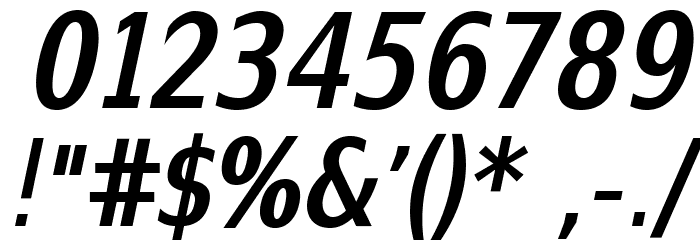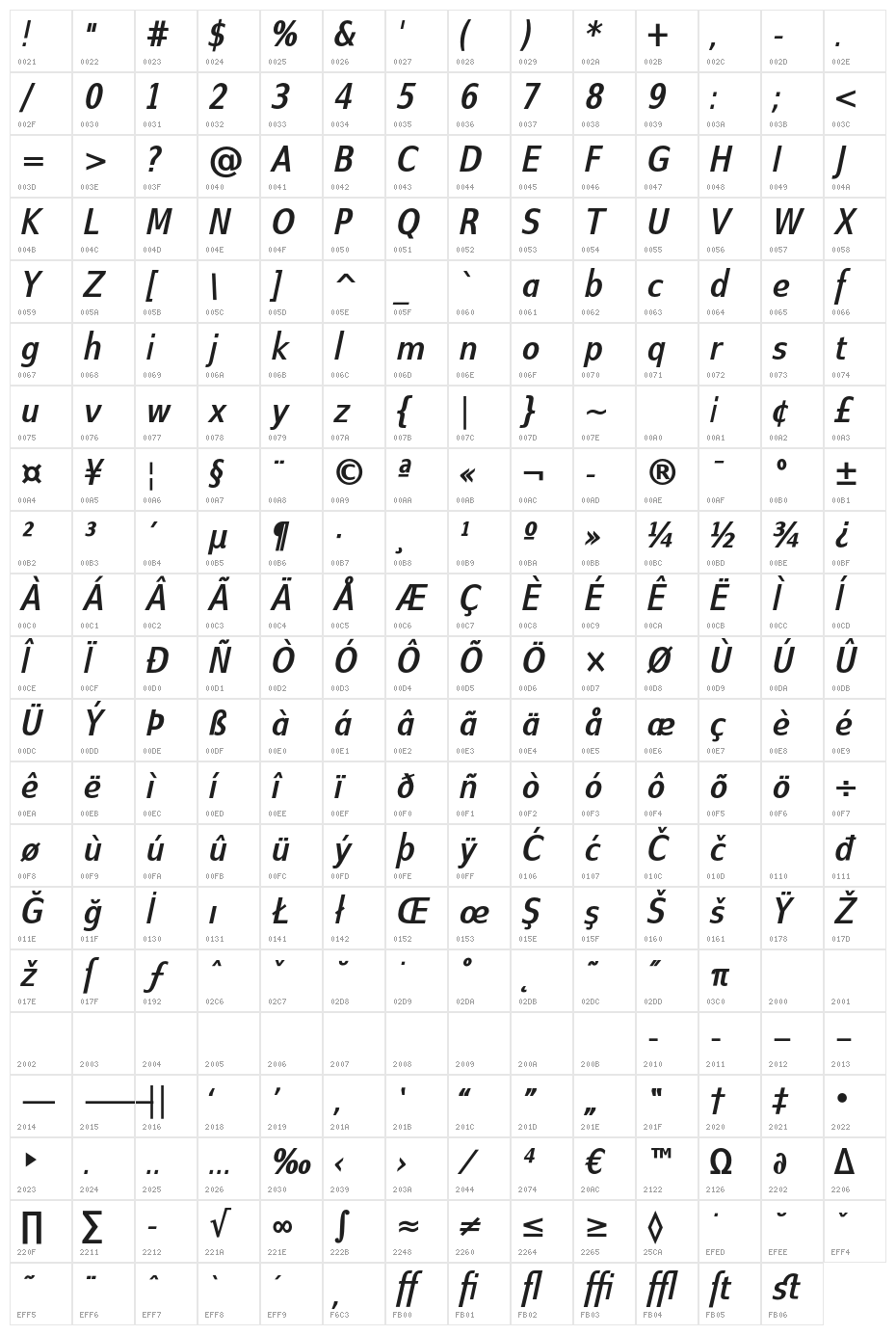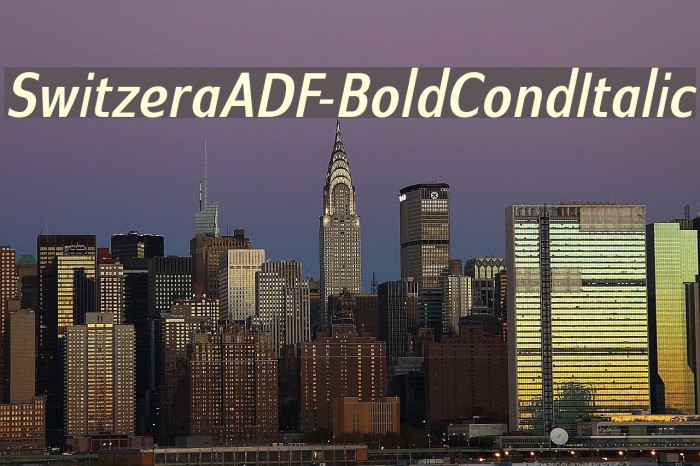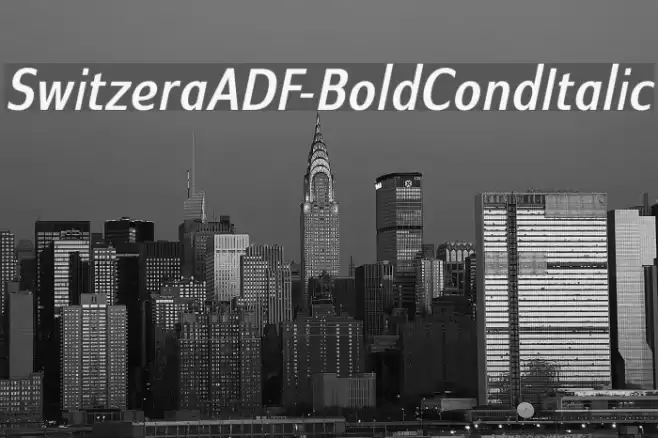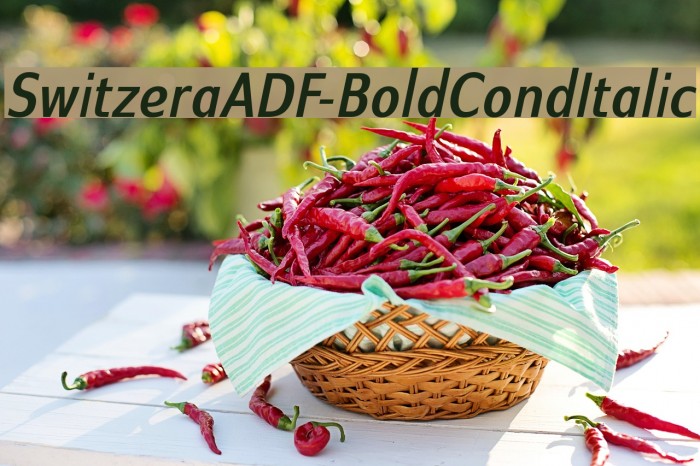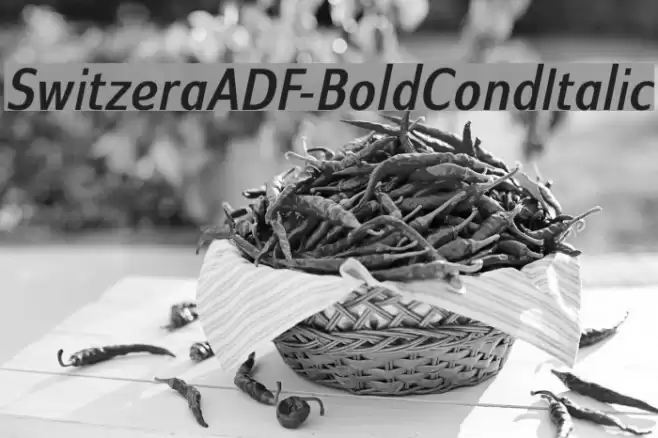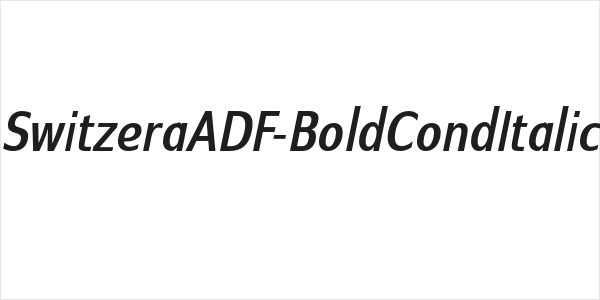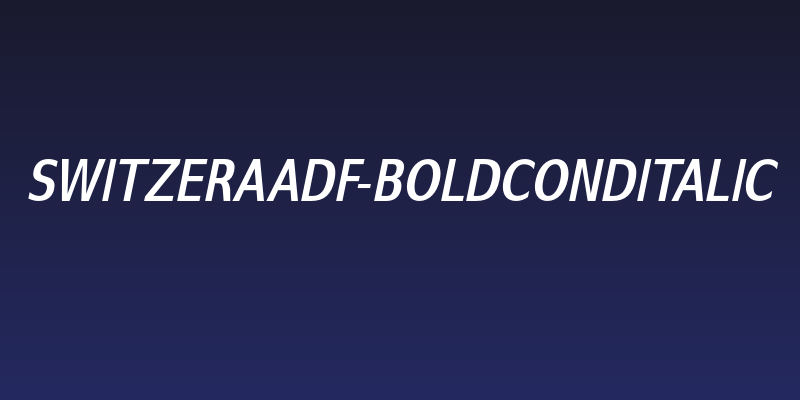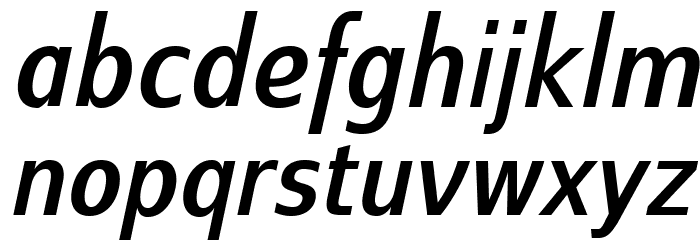
SwitzeraADF-BoldCondItalic Font
SwitzeraADF-BoldCondItalic Description
This font exhibits a modern and sleek design with a bold and italicized style. The characters are slightly condensed, giving it a compact appearance while maintaining readability. The strokes are consistent in thickness, providing a medium contrast that enhances its legibility. The italic slant adds a dynamic and forward-moving feel, making it suitable for contemporary designs. The font includes a full set of uppercase and lowercase letters, numerals, and a variety of special characters, making it versatile for different applications.
| Use Case | Headlines, Logos, Advertising |
| Proposed Projects | Ideal for branding, advertising, and editorial design projects where a modern and dynamic look is desired. |